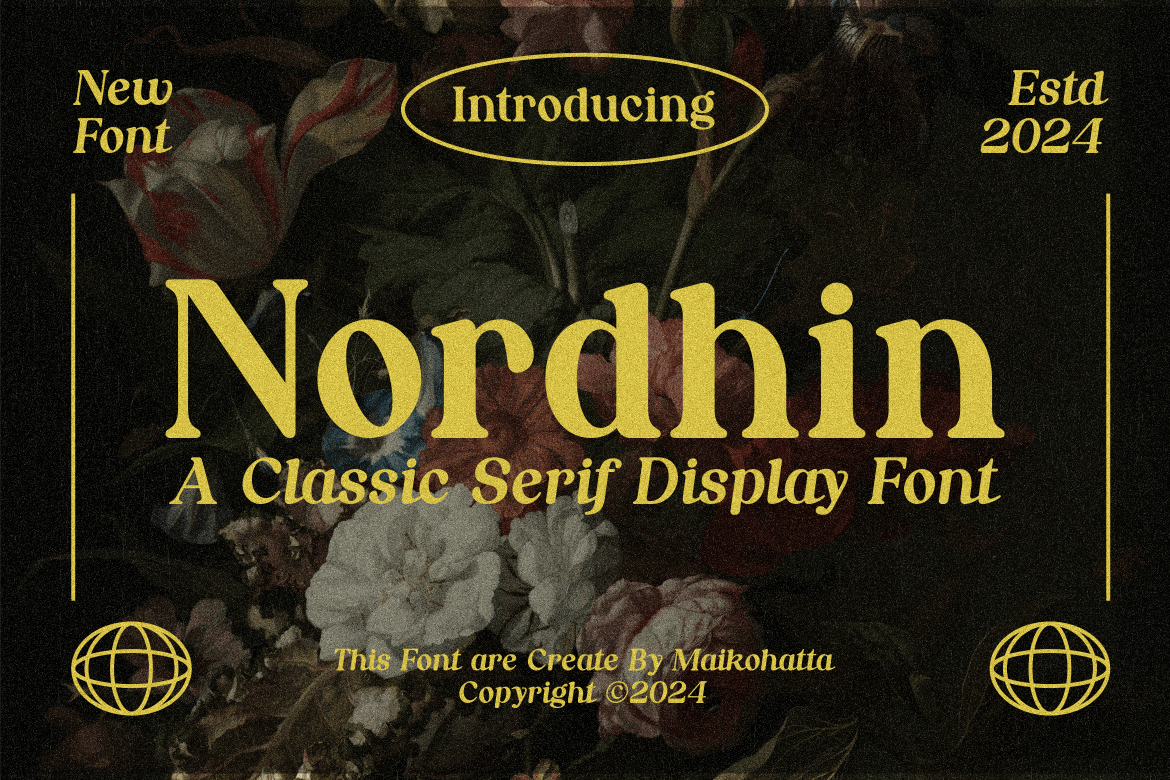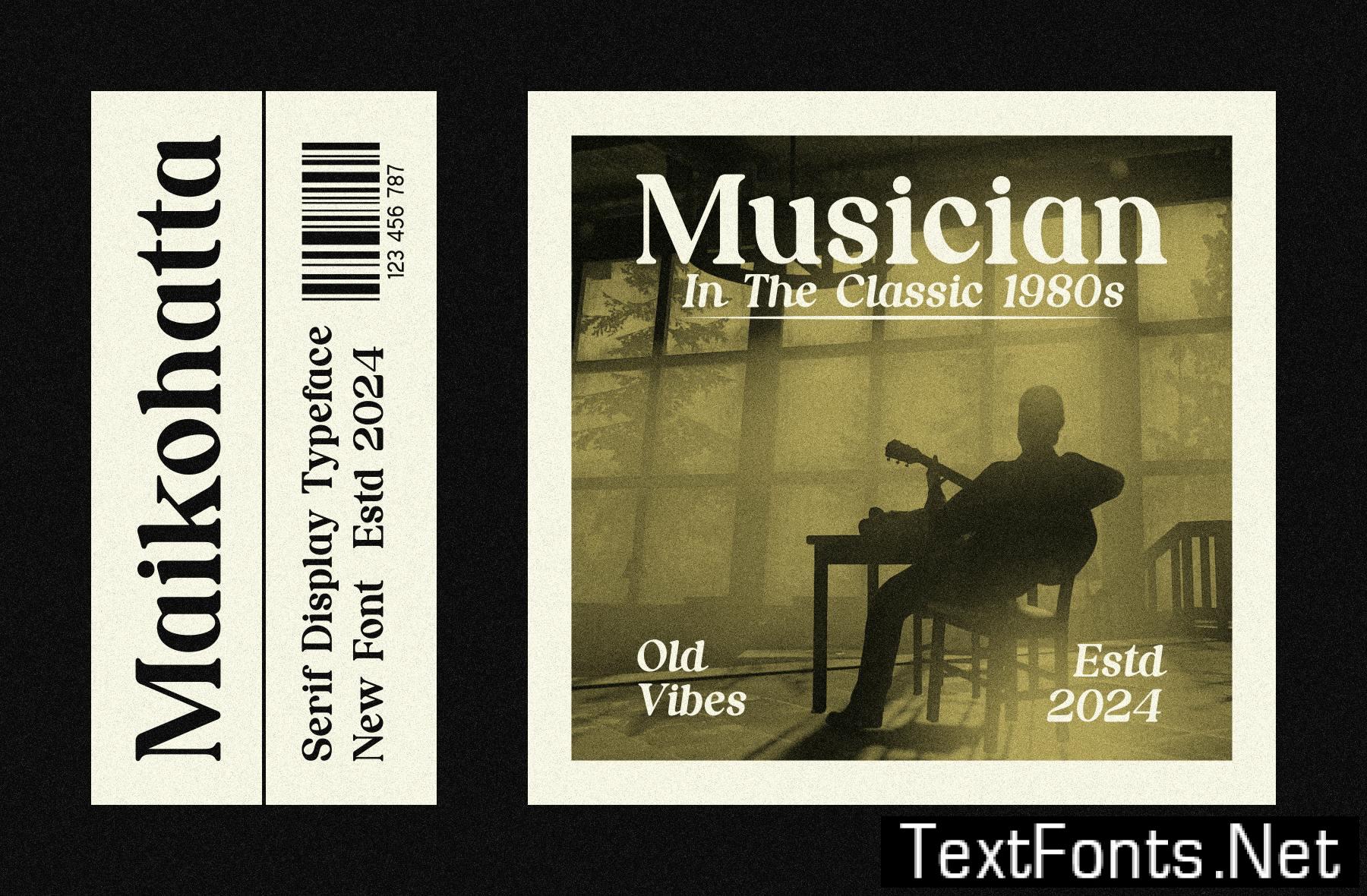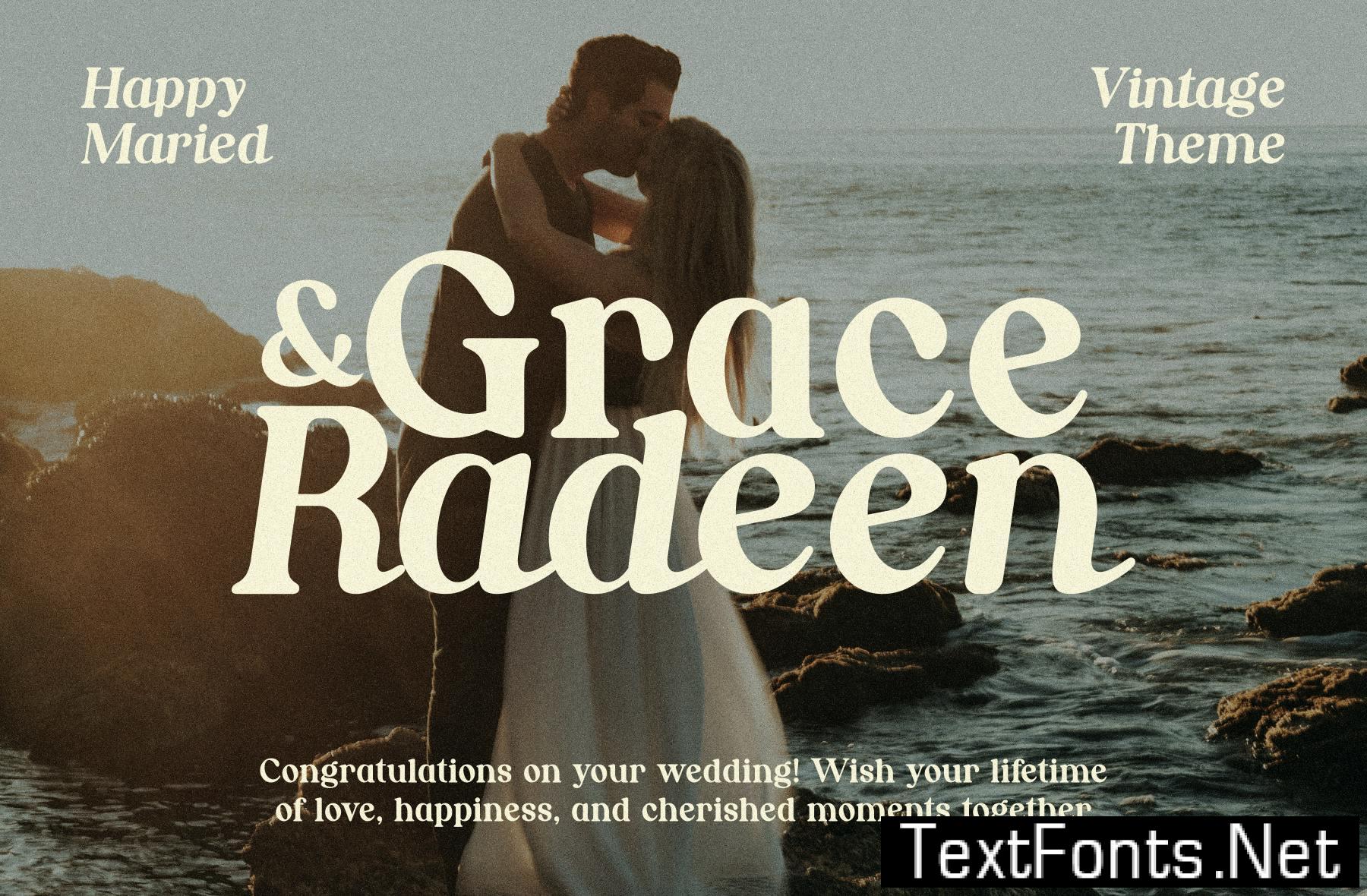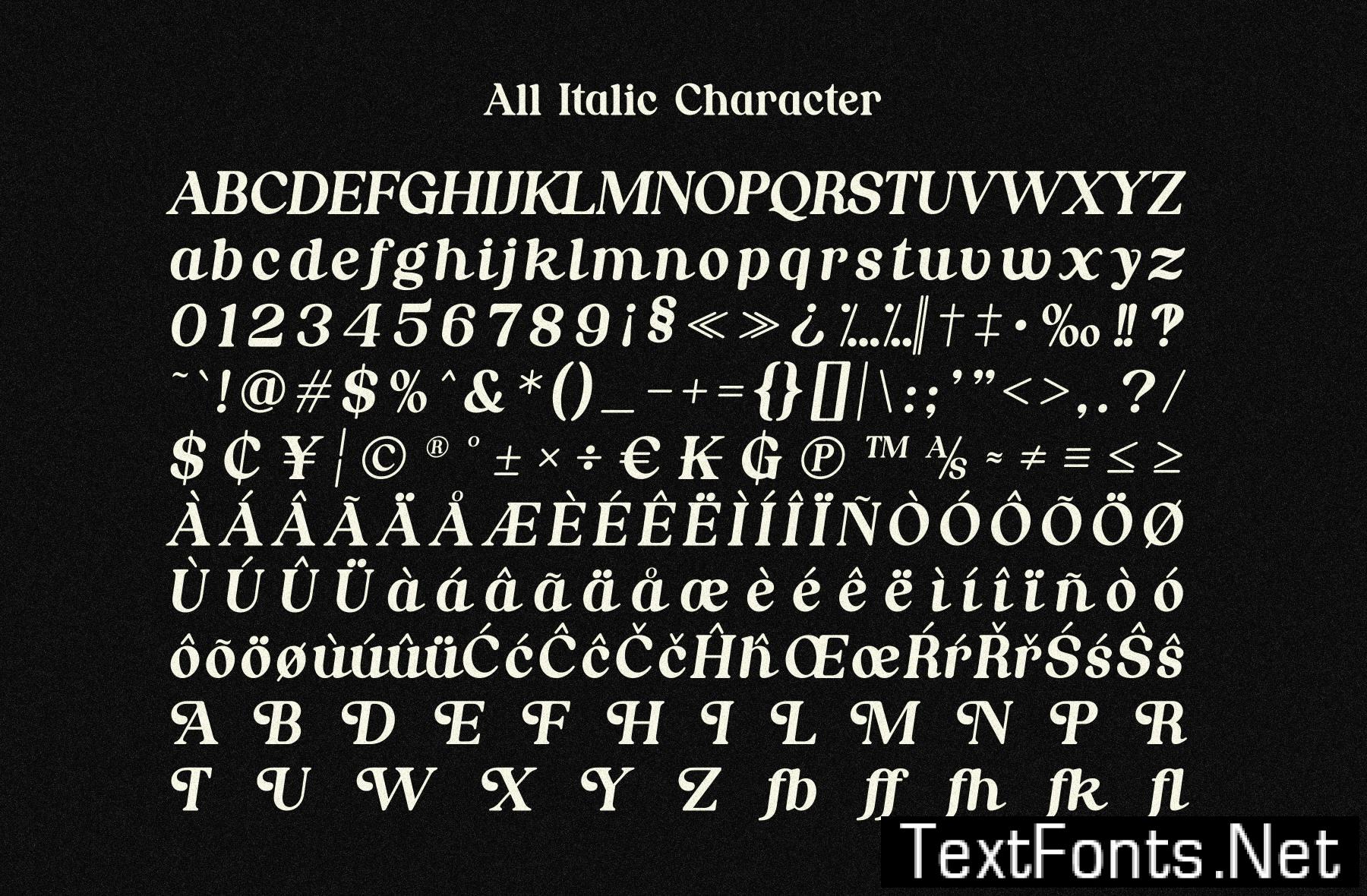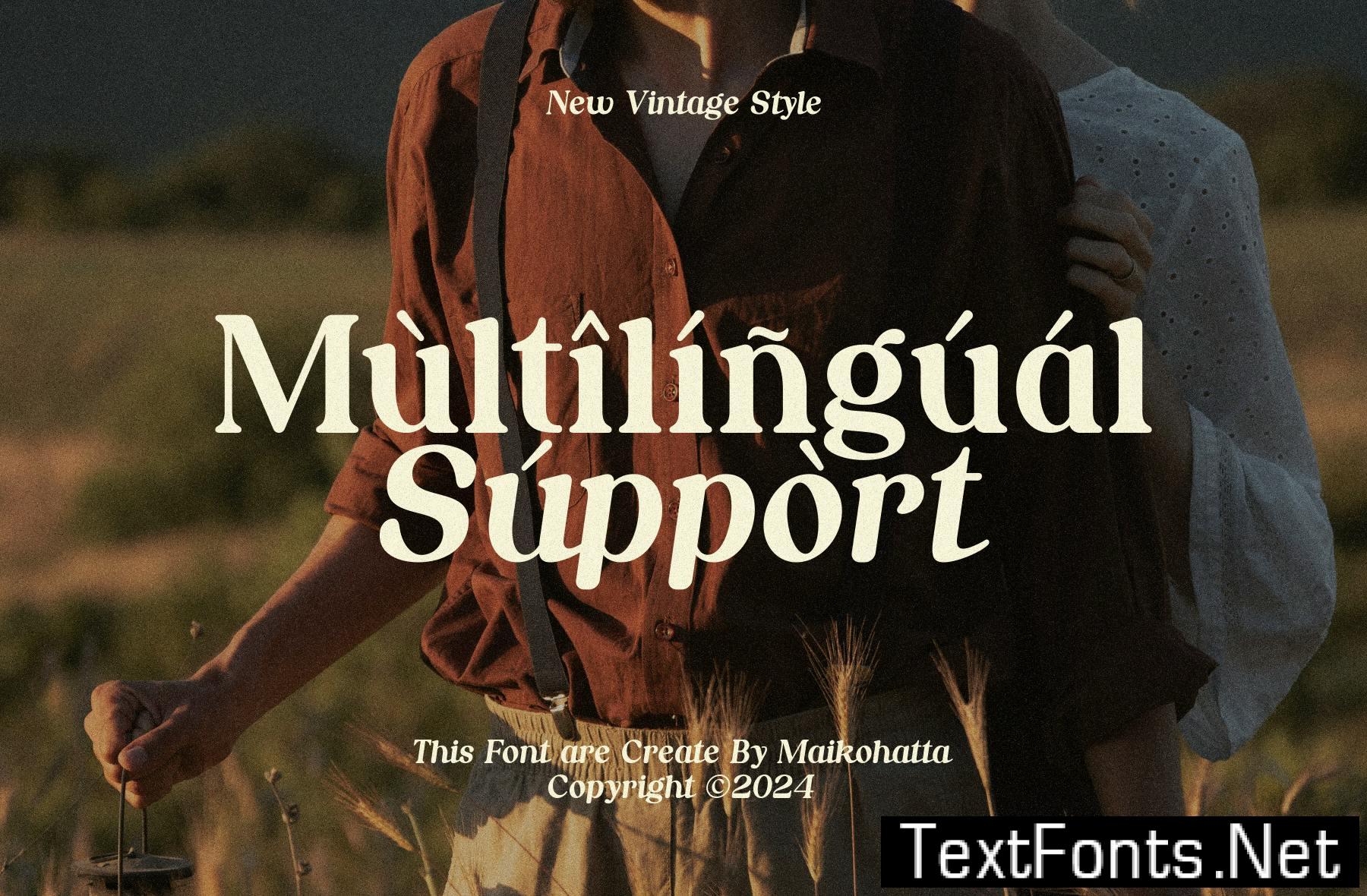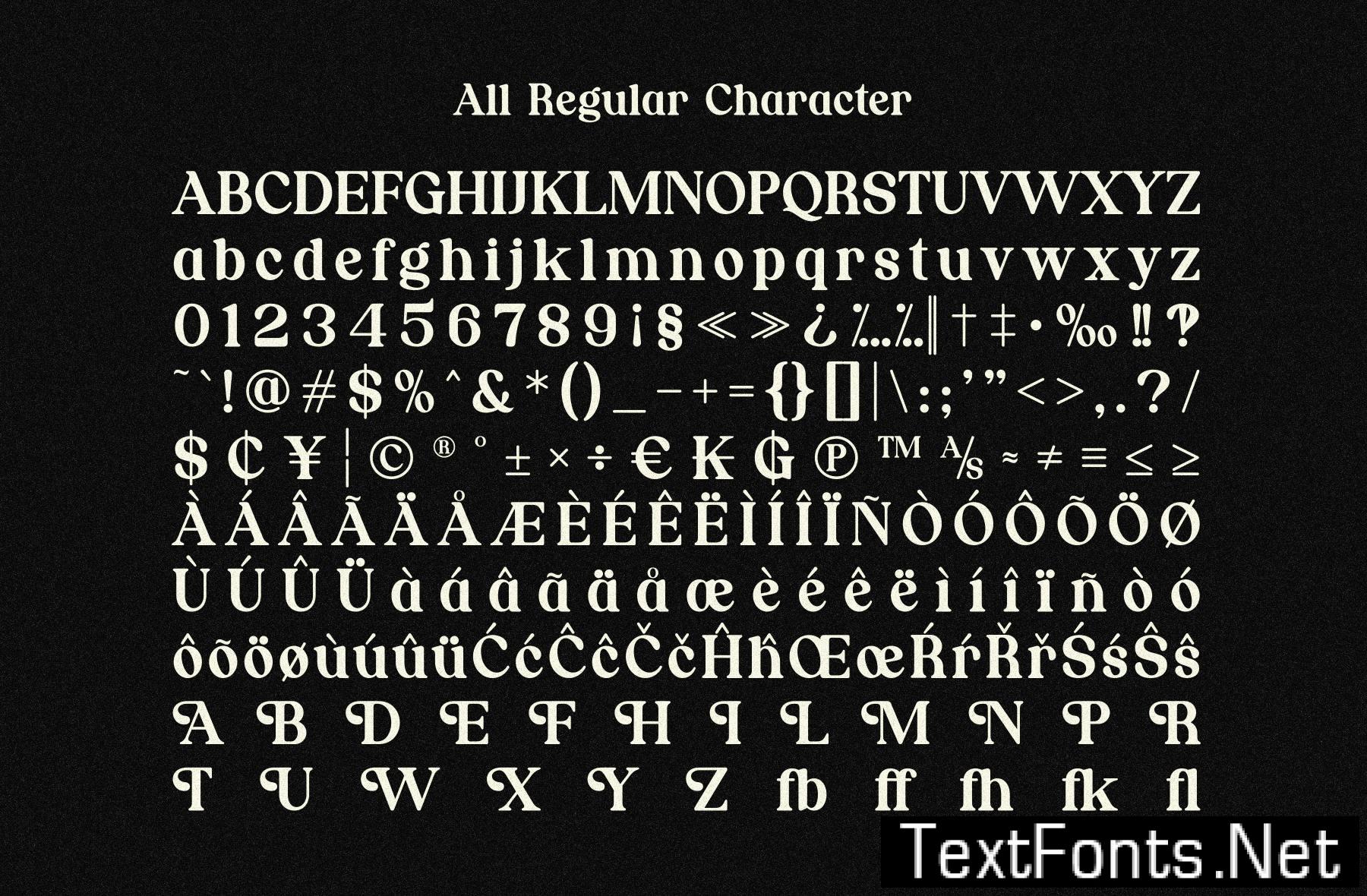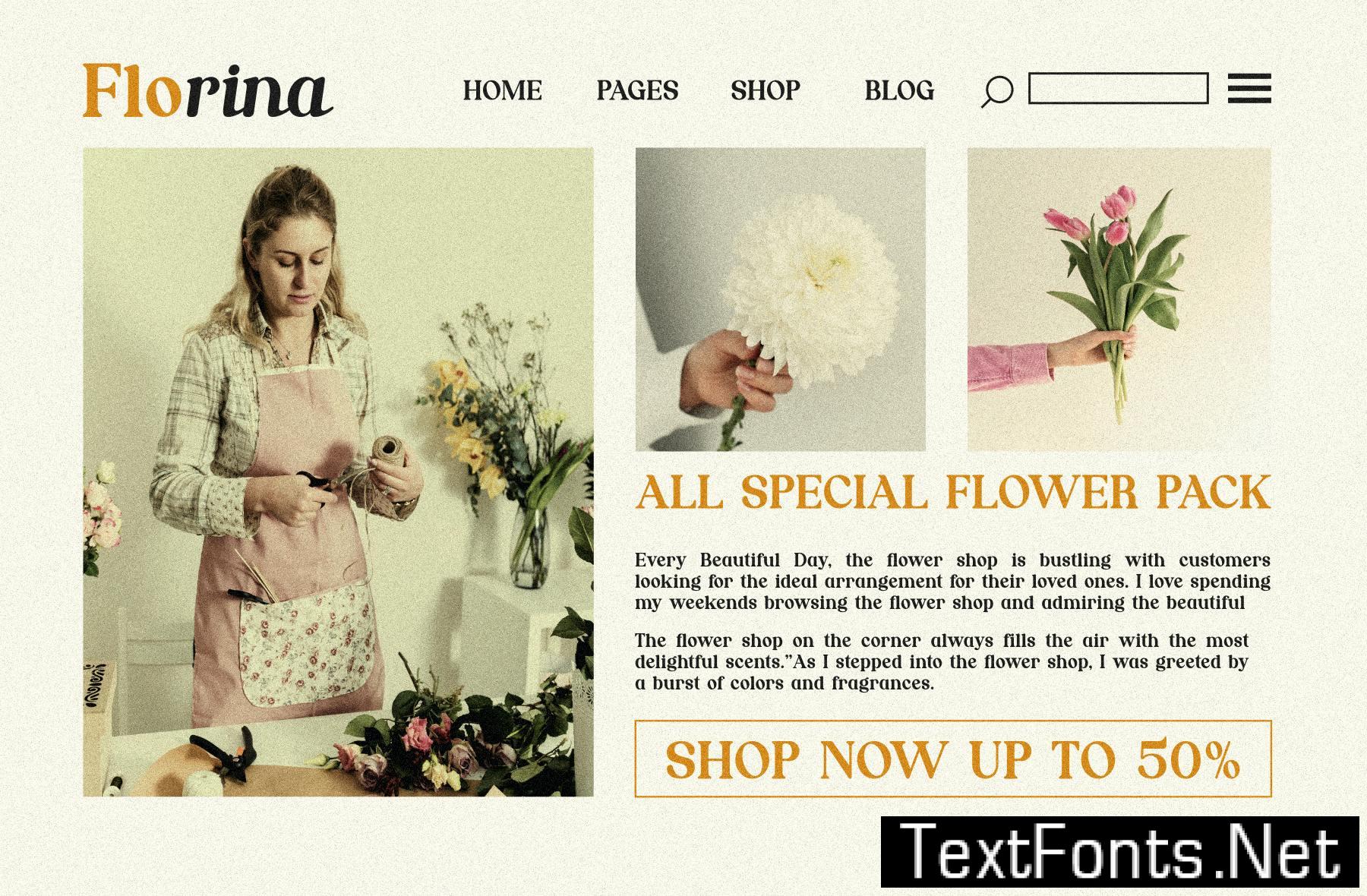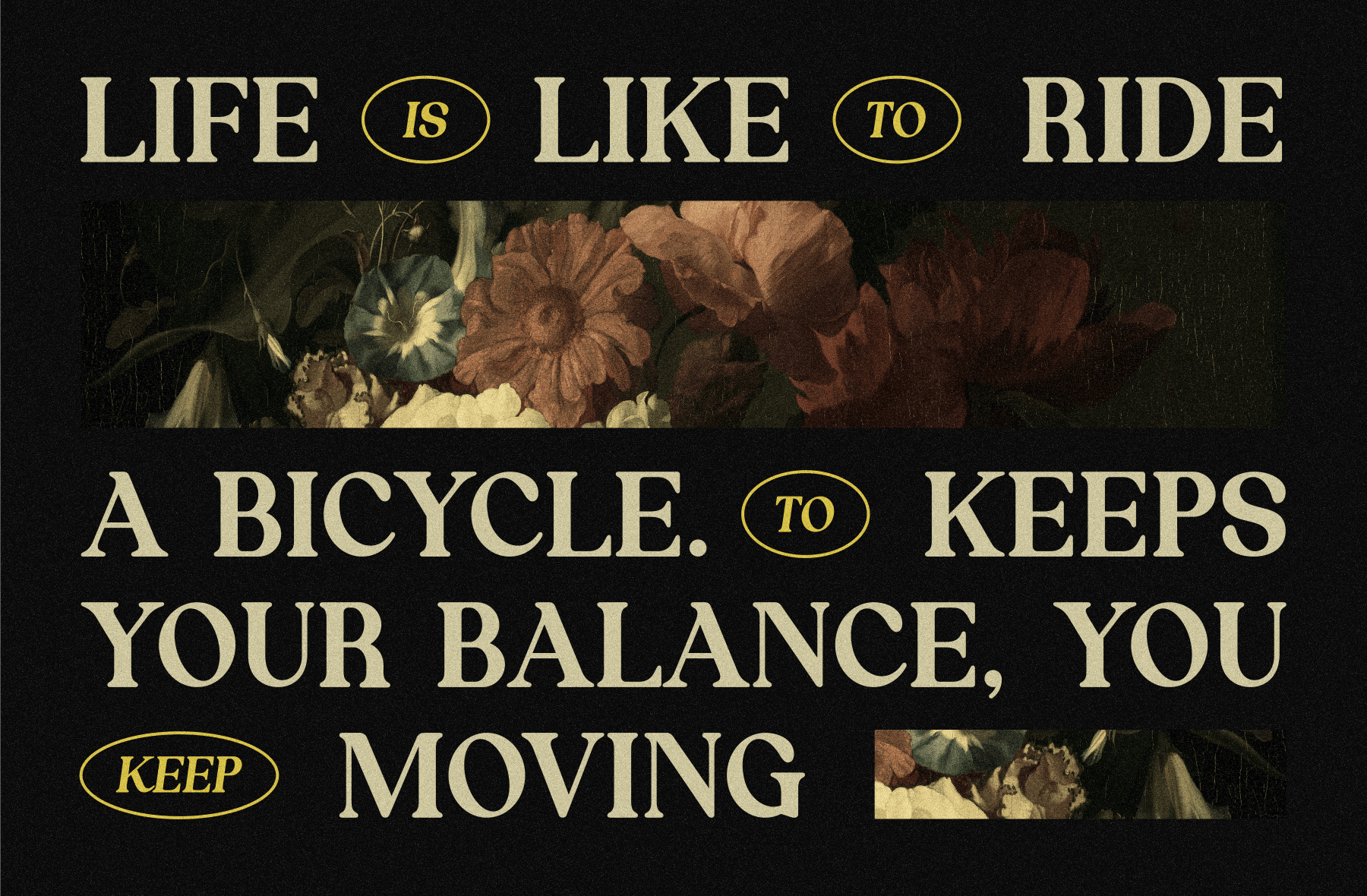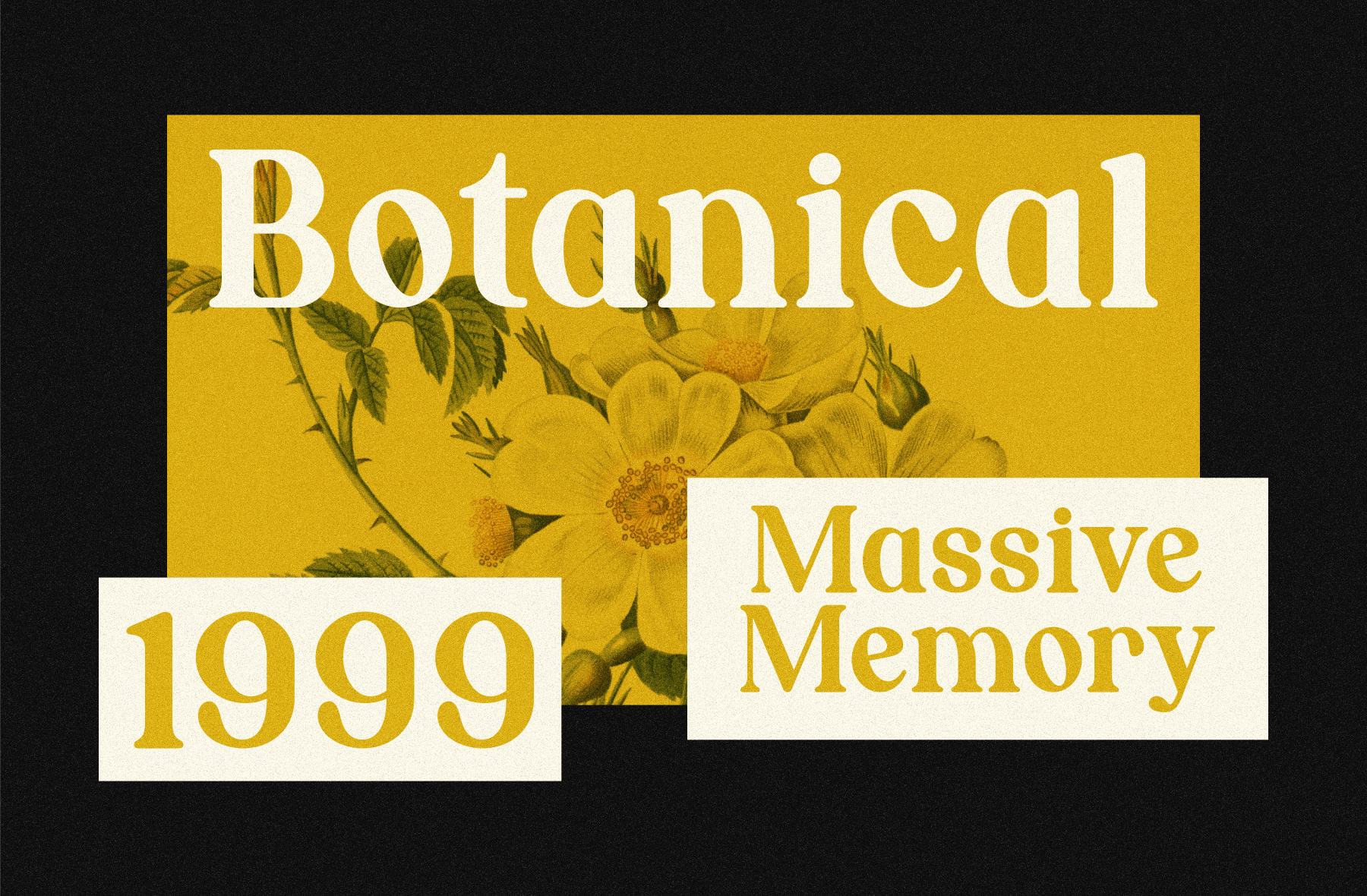
Nordhin – Classic Serif Display Font 6J7ATV5
Introducing our new product **Nordhin** – Classic Serif Display Font
This font has a series of small or decorative projections called serifs at the ends of its characters. Serifs provide a more formal, classic, and easy-to-read appearance to printed text. Serif fonts are often used in formal documents, books, and print publications because of their good legibility at small text sizes.
* Alternate
* Ligature